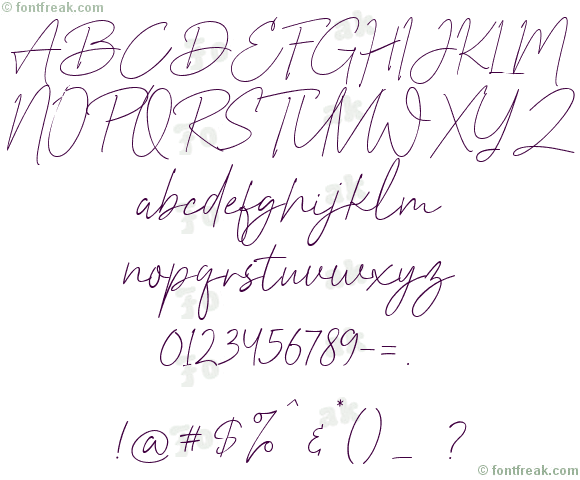
Prettier Script Regular
About Prettier Script Regular
Prettier Script Regular is a charming script font designed by 50Fox Studio, classified among handwritten typefaces. This font showcases a graceful and flowing style, making it an ideal choice for projects that require a personal touch. The strokes exhibit a moderate weight with a smooth contrast, giving it an elegant yet readable appearance. The spacing between the letters is thoughtfully crafted, allowing for a fluid reading experience while maintaining clarity.
The decorative elements of Prettier Script Regular include gentle curves and sweeping ascenders, which enhance its aesthetic appeal. This font is particularly suited for a variety of creative applications. It shines in wedding invitations, where its romantic flair can add a special touch to the celebration. Additionally, it is perfect for crafting engaging movie posters, allowing titles to stand out with an artistic flair. Restaurant menus can also benefit from this font, as it adds a sophisticated yet welcoming vibe to the dining experience. Other uses include branding for artisanal products, where an authentic and handcrafted feel is desired, and social media graphics that aim to captivate audiences with stylish typography.
Targeting graphic designers, small business owners, and content creators, Prettier Script Regular provides a versatile solution for those looking to elevate their visual communication. Its unique character and flair make it a valuable asset in any designer's toolkit.